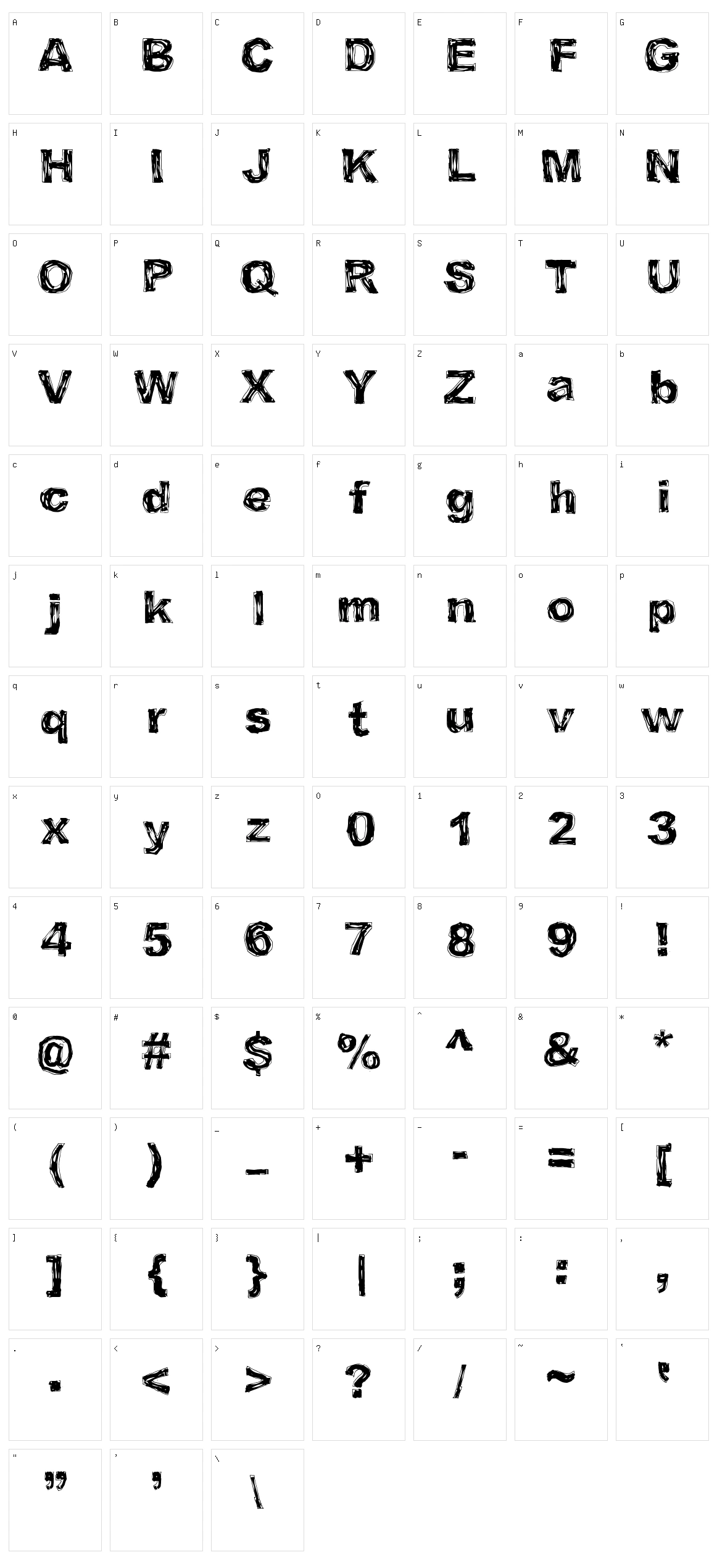
The free font I believe in life before death is carefully designed by junkohanhero, showcasing a thoughtful balance of creativity and usability and falls under the Eroded font style. When you download the ZIP file, it contains only 251.94 KB of font files, making it lightweight and quick to download. Please review the license details below to understand permitted usage and distribution rights. If license information is not available, we recommend using this font for personal projects only or contacting the author directly for commercial usage permissions.